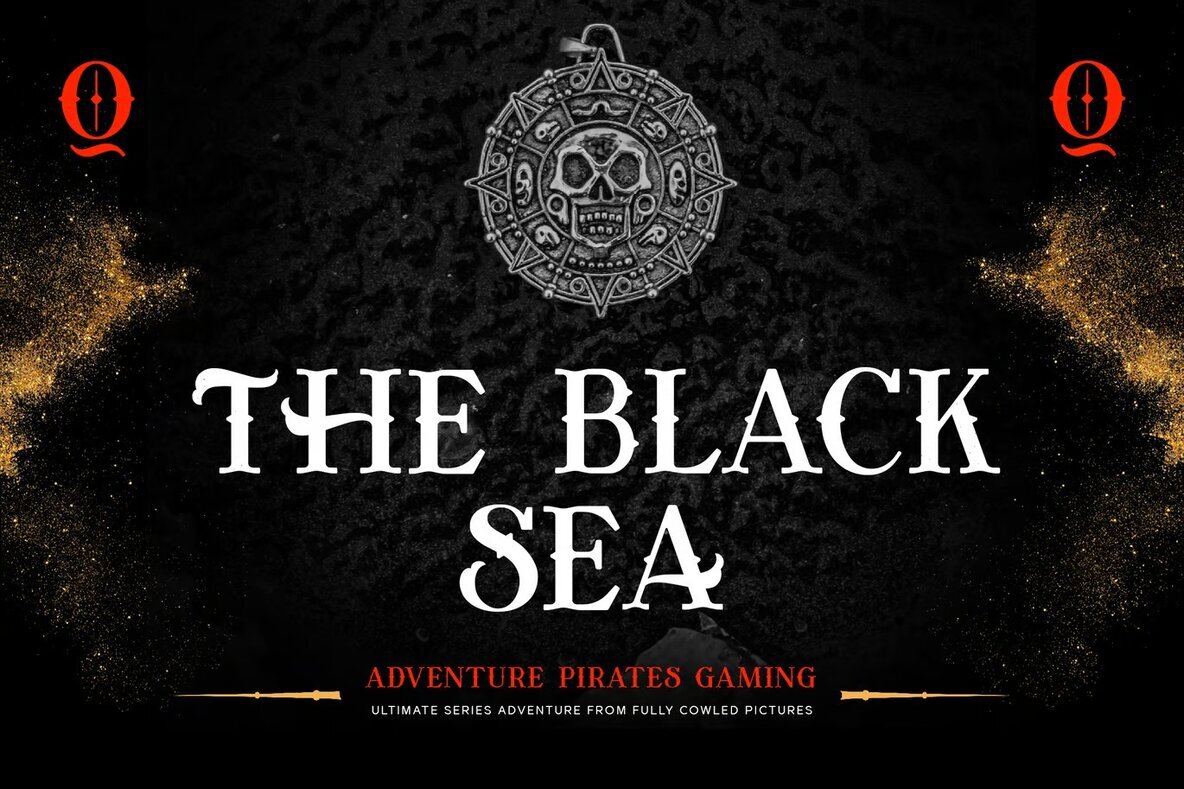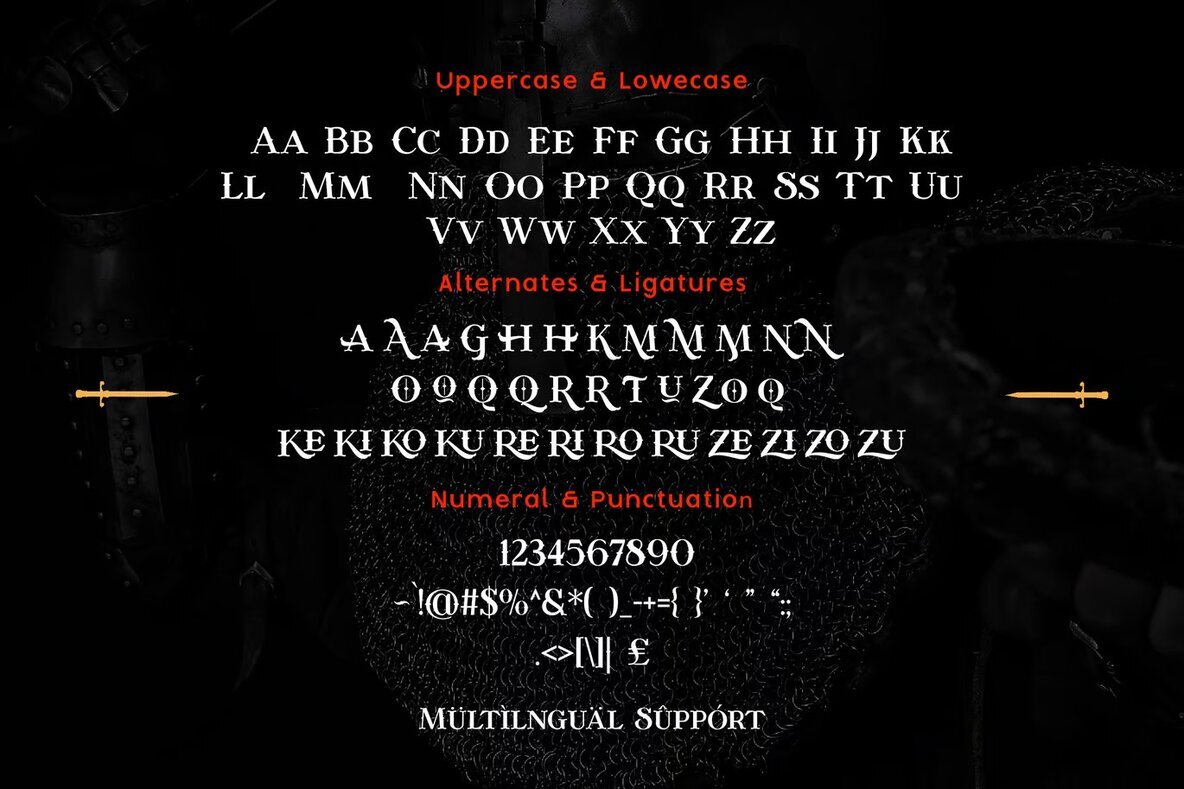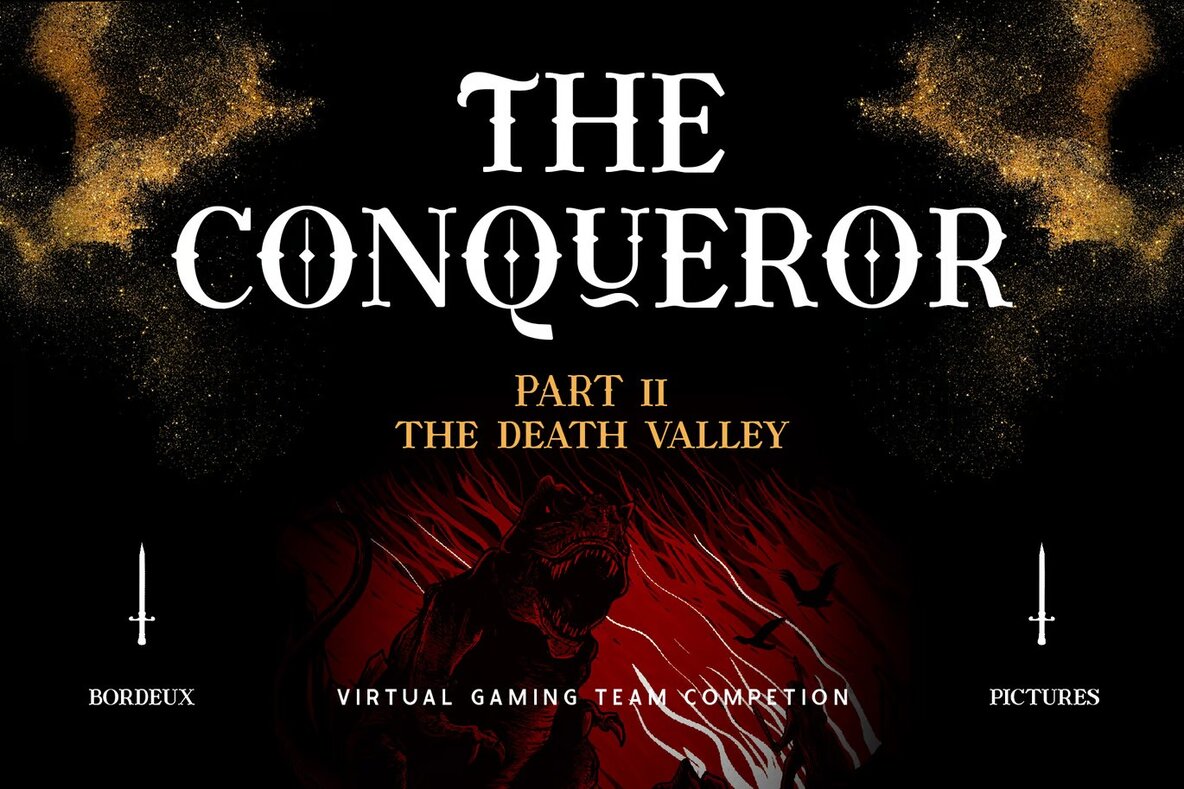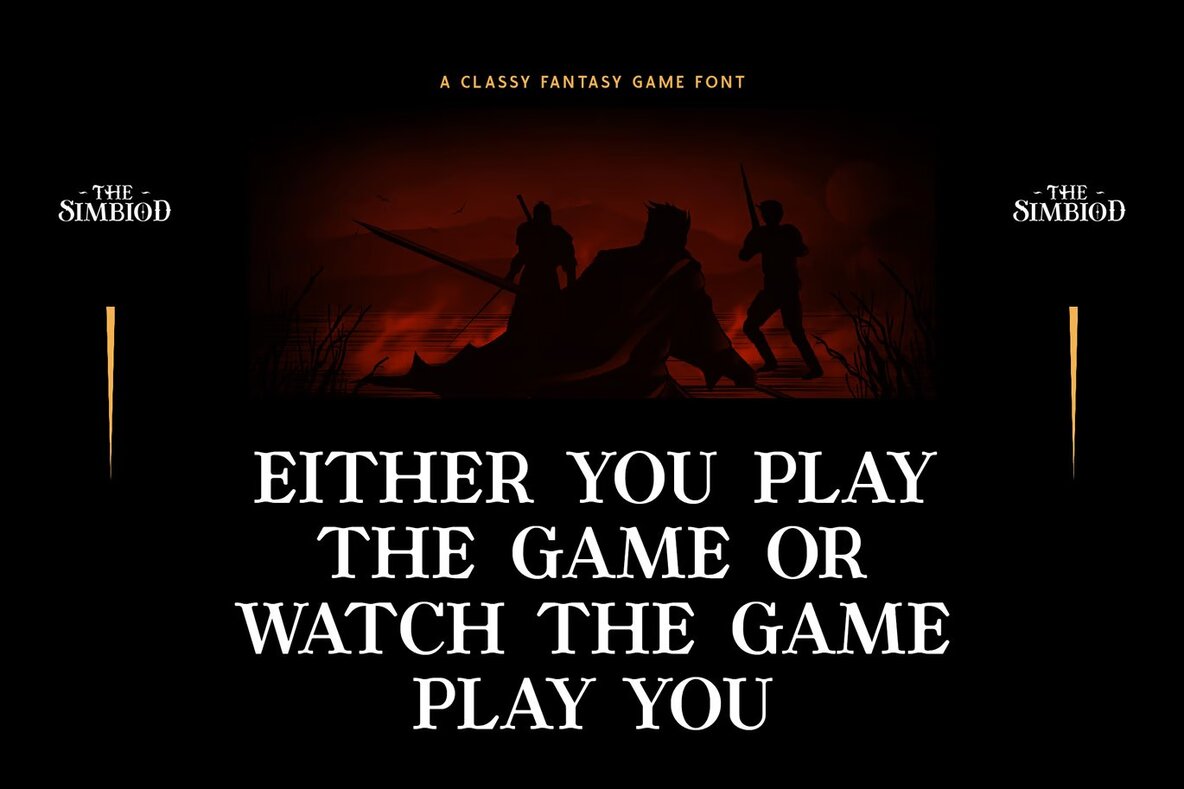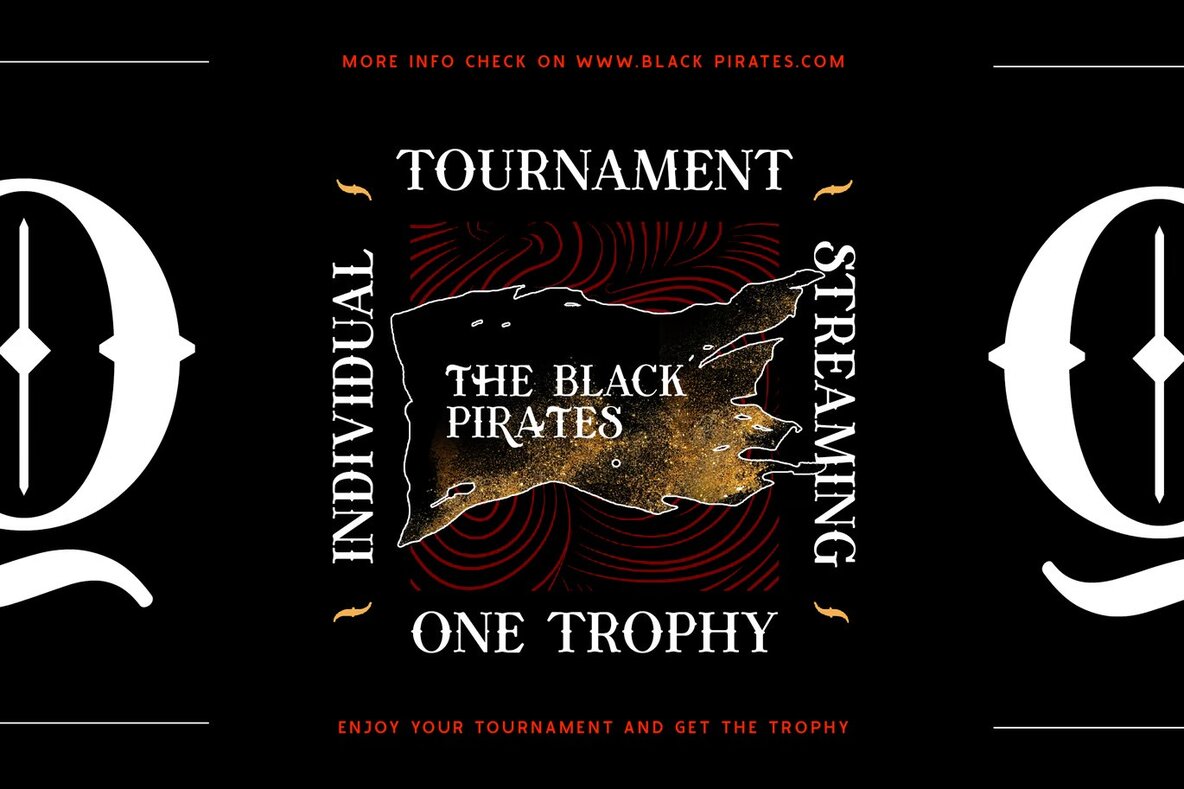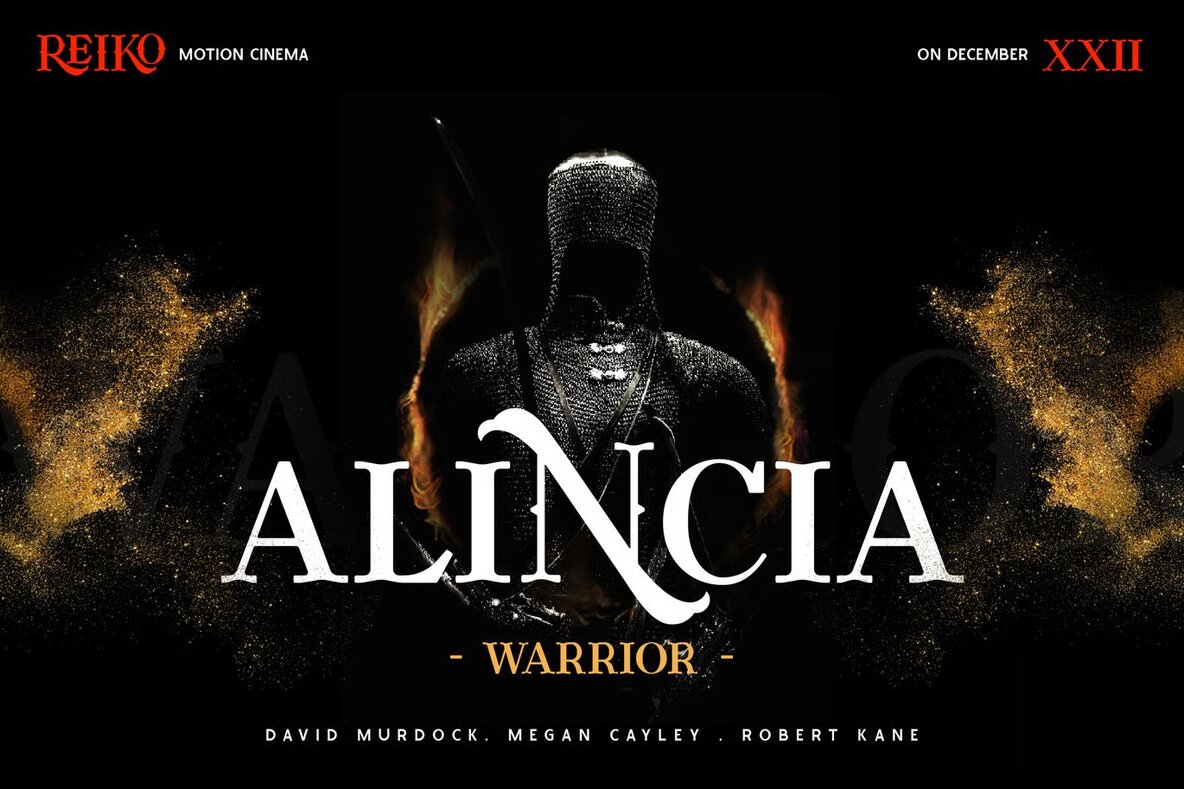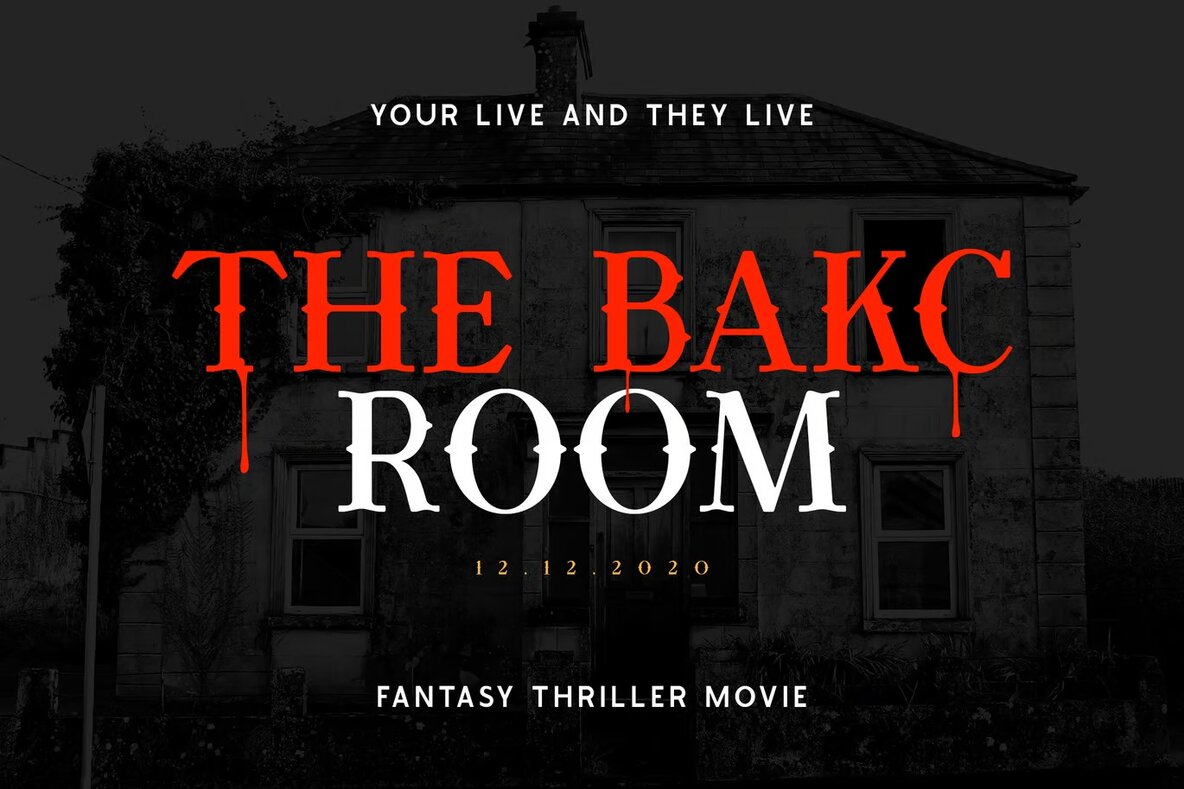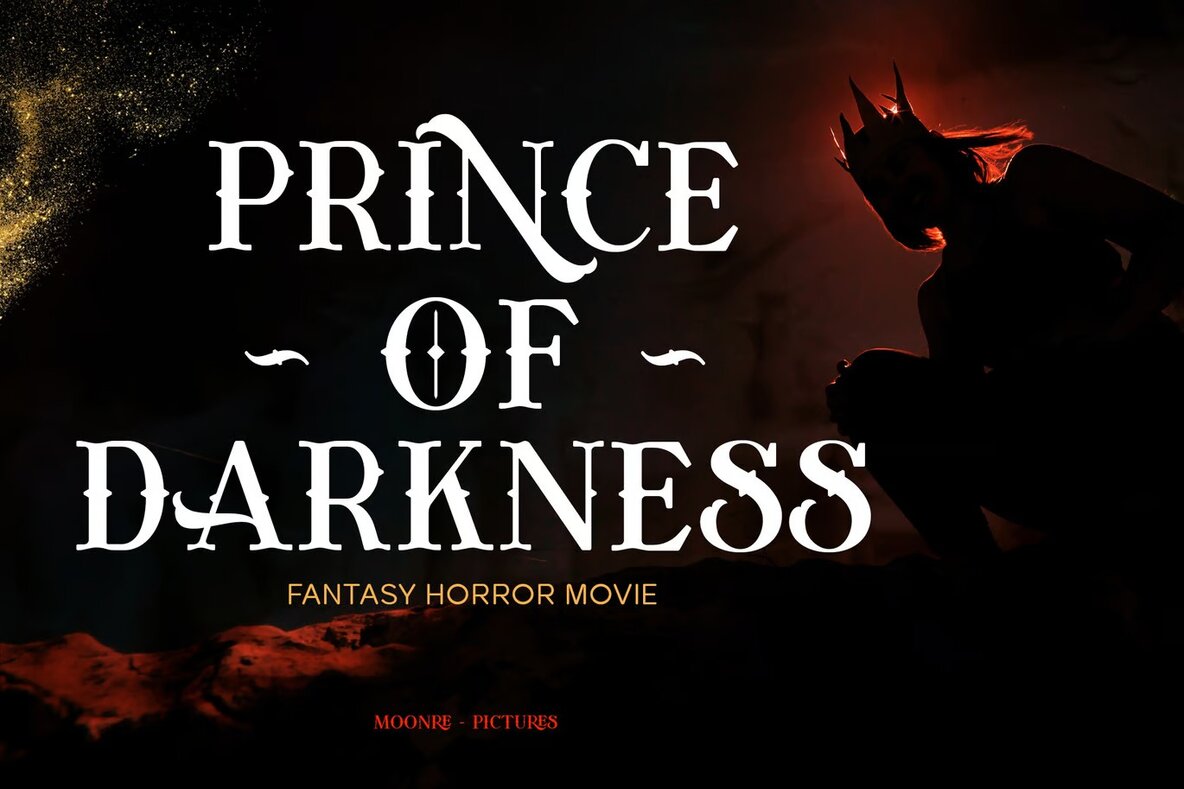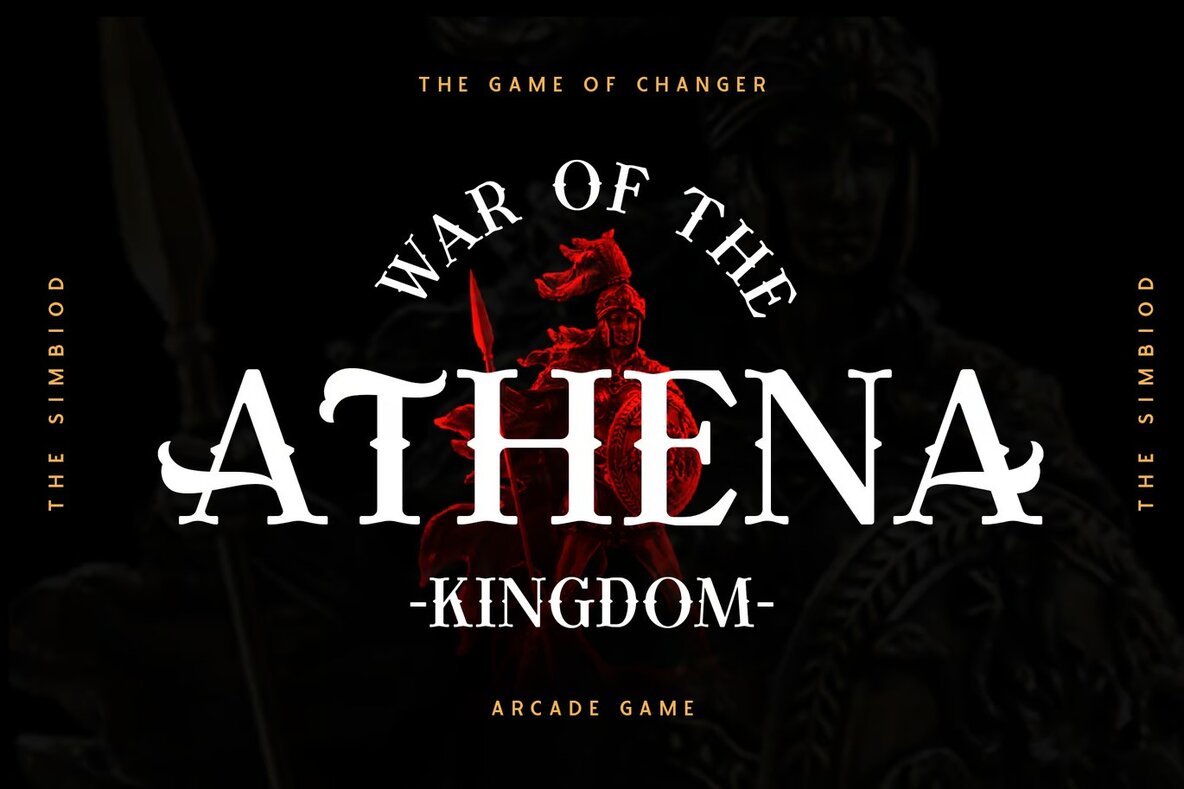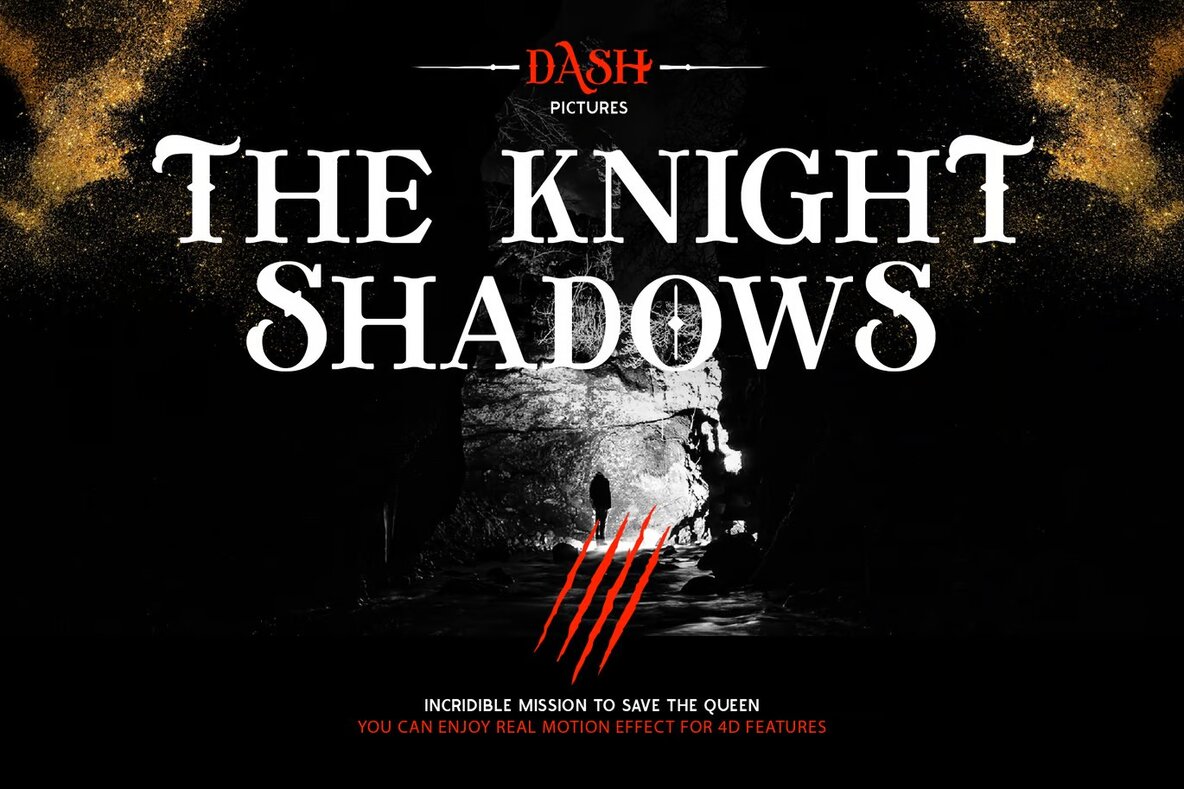
The Simbiod Font
The Simbiod Regular
The Simbiod is an all-caps display serif font that brings a unique and classic touch to any design project. Its adventurous and fantasy-inspired style makes it ideal for projects that require a pirate game aesthetic or a gothic theme. Perfect for logo creation, branding, and modern advertising, this font can enhance Halloween designs, hardcore music visuals, and fantasy animations or movies. Its versatility allows it to be seamlessly integrated into adventure posters, book covers, and editorial designs.
In addition to its striking appearance, The Simbiod is well-suited for the game industry, music and band artwork, and various merchandise items like custom mugs, pillows, and t-shirts. It offers a bold and distinctive look that suits a wide range of applications, from card designs to website graphics and blogs. Whether you're working on a gothic hand-lettered project or need an eye-catching font for your adventure-themed pieces, The Simbiod provides a dynamic and memorable style that stands out.